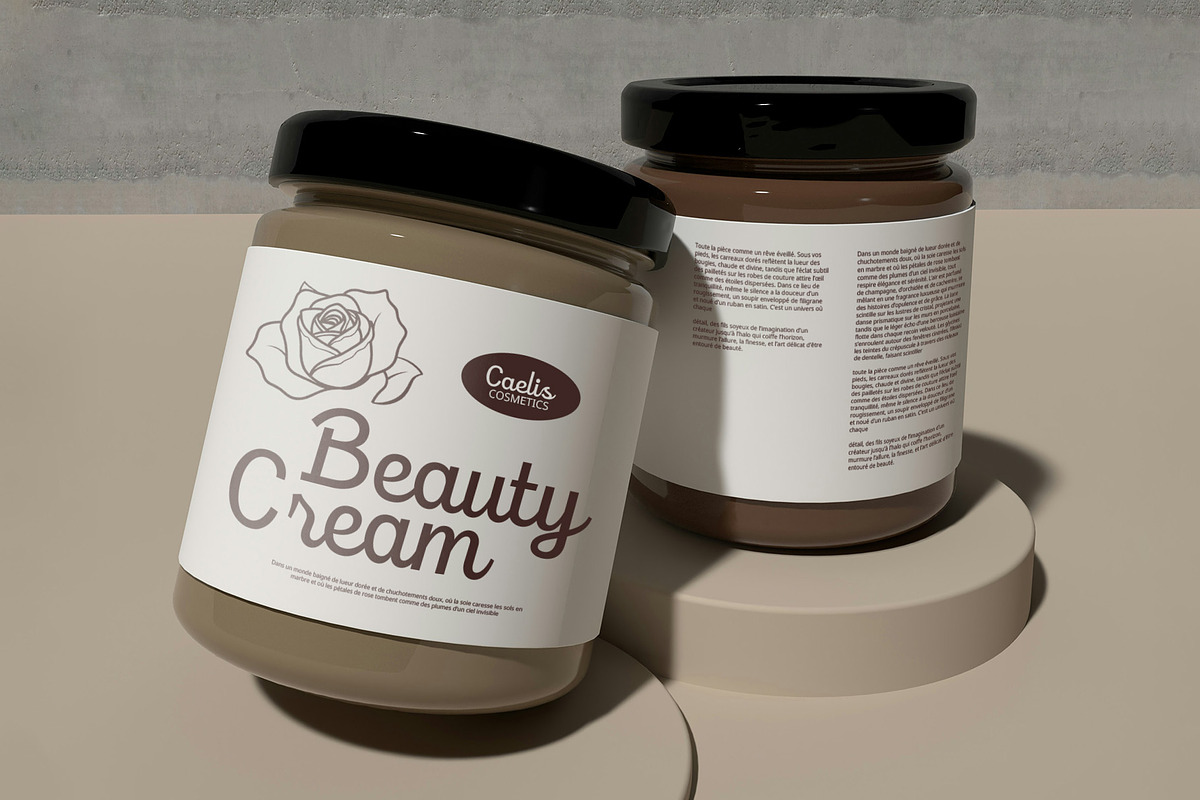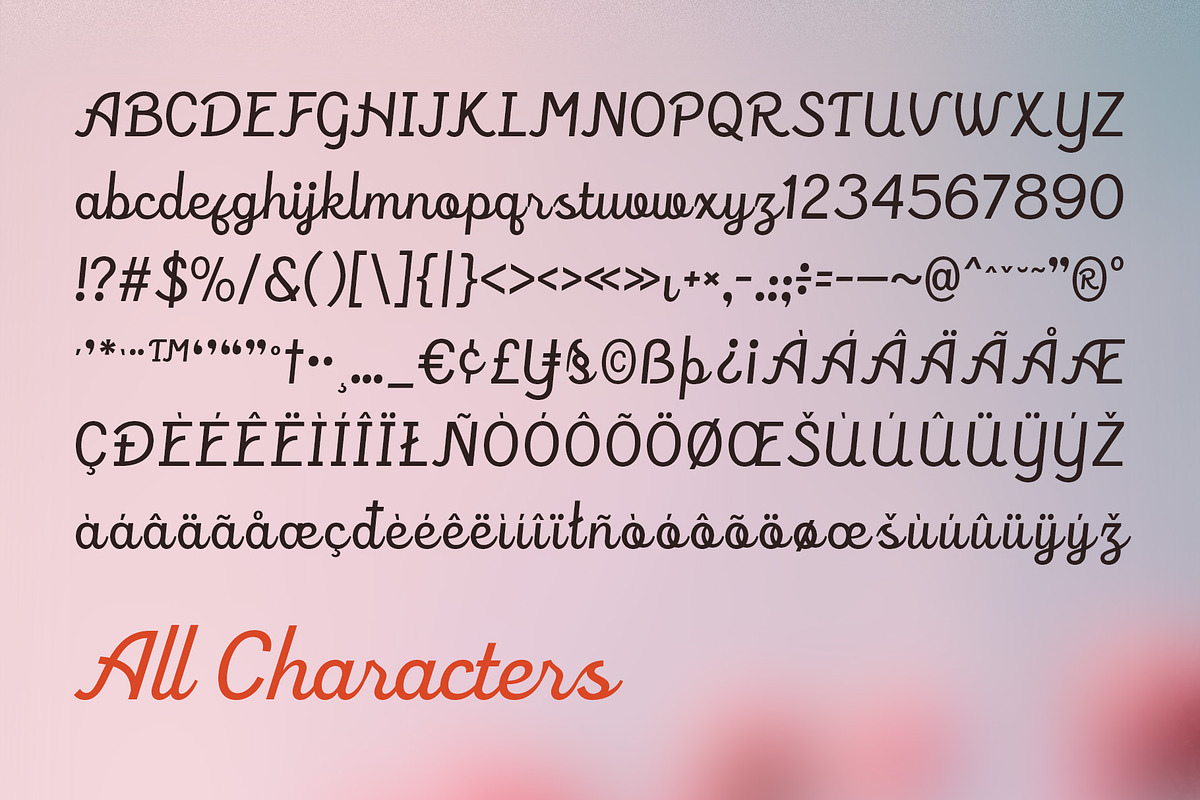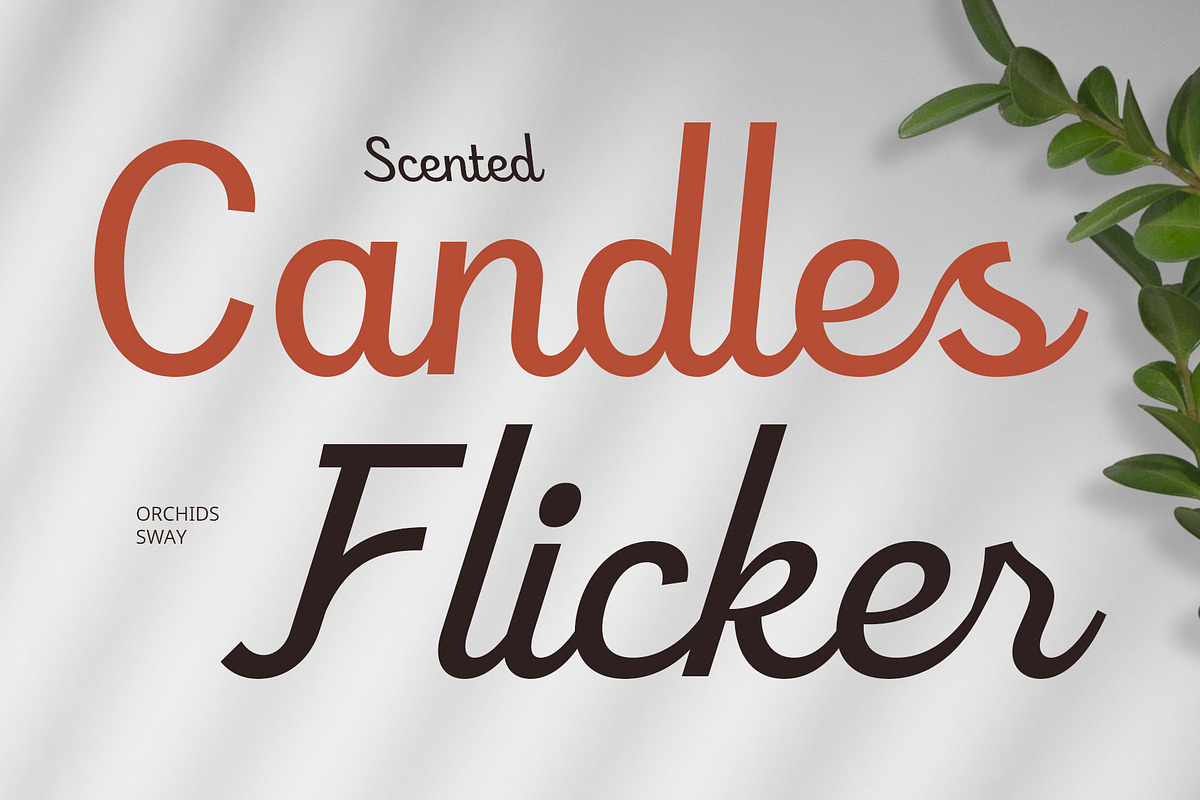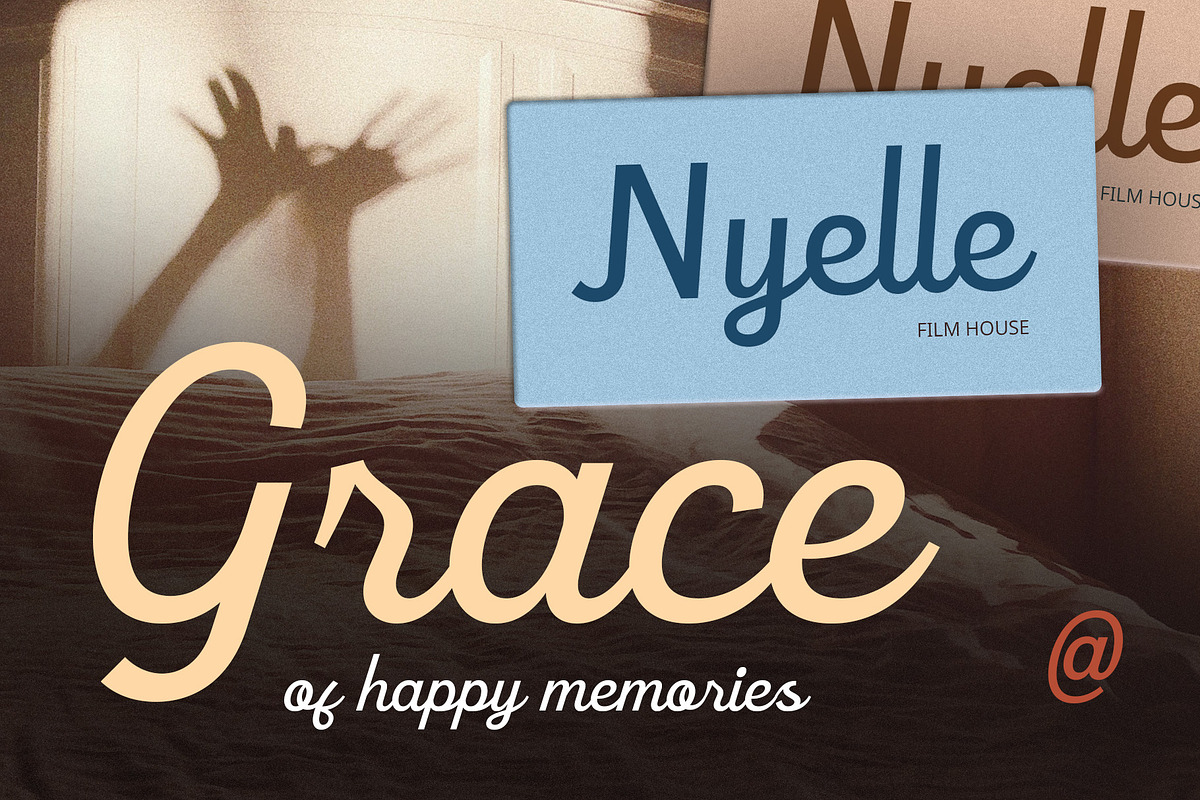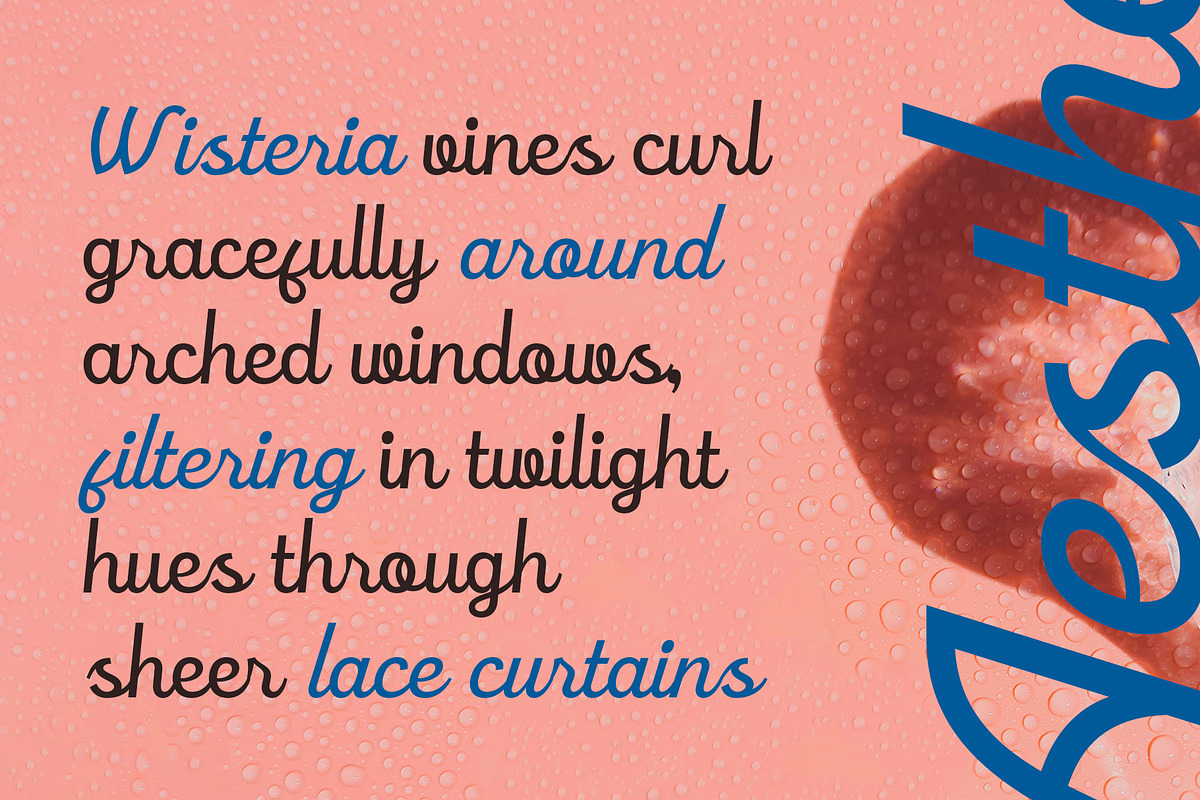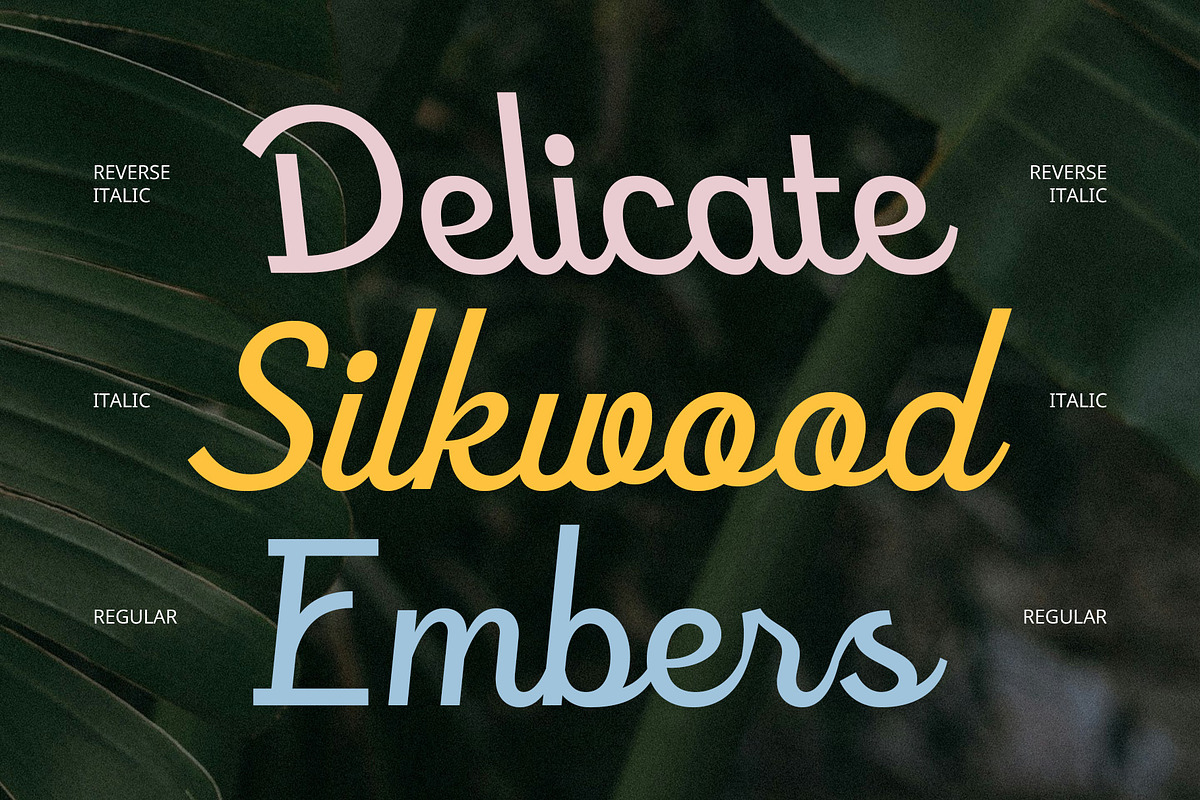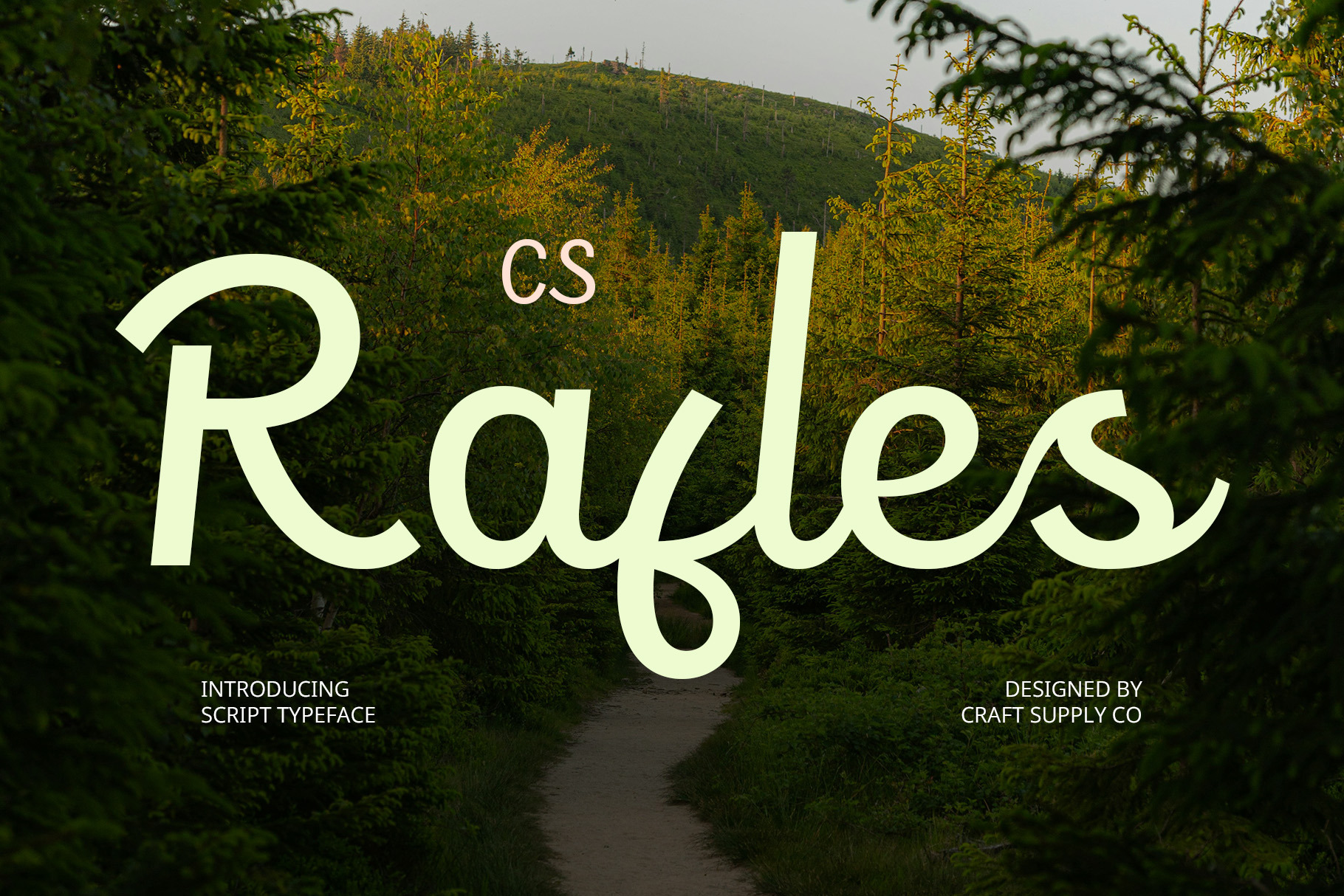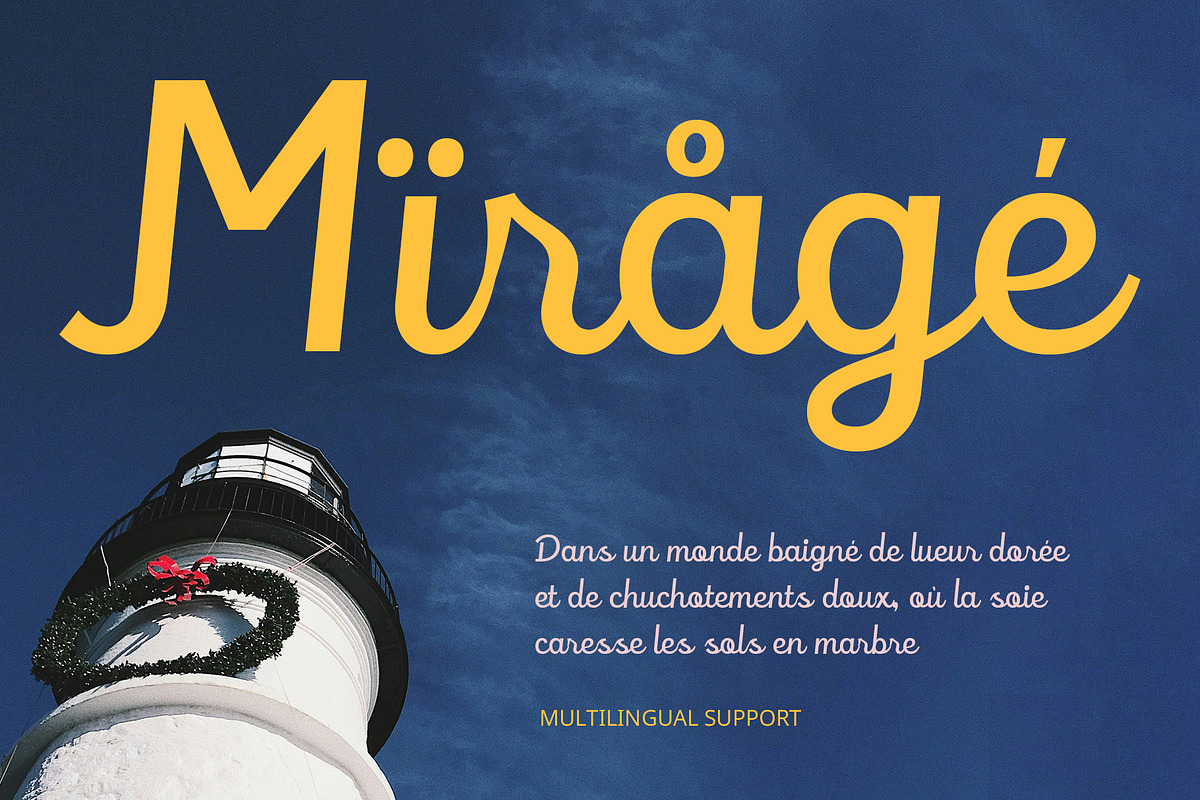
CS Rafles – Script Font
CS Rafles – Elegant Script Font
Graceful, Flowing, and Sophisticated CS Rafles is a modern script font that showcases a smooth, flowing cursive style designed to evoke elegance and charm. With every stroke carefully balanced, this typeface merges the natural beauty of handwriting with a refined contemporary aesthetic, resulting in a look that is both timeless and polished.
A Feminine Touch with Premium Appeal Each curve and loop in CS Rafles is drawn with graceful movement and stylistic flair, giving the font a romantic, soft, and upscale tone. It radiates femininity, sophistication, and warmth, making it ideal for designs that require a delicate yet confident expression—from luxury product packaging to fashion lookbooks or personalized stationery.
Versatile for Chic & Elegant Design Whether you’re creating beauty branding, wedding invitations, or lifestyle editorials, CS Rafles brings an added layer of personality and elegance. Its legibility and gentle flow allow it to shine in both headline applications and signature-style accents, enhancing the mood of any creative layout.
Handcrafted for Stylish Storytelling CS Rafles is more than just a font—it’s a visual expression of elegance. Its hand-drawn charm and graceful rhythm allow designers to tell stories with beauty and emotion, capturing attention with a soft, stylish voice. Whether you’re crafting a heartfelt message or building a chic brand identity, CS Rafles provides the perfect balance of artistry, sophistication, and readability.
- CS Rafles Regular
- CS Rafles Italic
- CS Rafles Reverse Italic